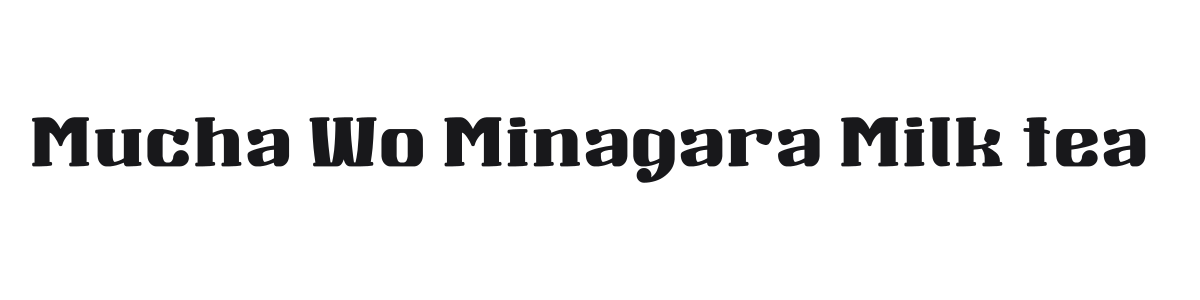
Mucha Wo Minagara Milk tea
Mucha Wo Minagara Milk tea is a heavy, condensed slab serif from Goma Shin with blocky, densely packed letterforms that carry a Japanese-inspired graphic sensibility. The bold strokes and tight proportions give it real visual impact, like display type pulled from a Tokyo street sign or product label. Best at large sizes for headlines, posters, and branding where you want something strong and unapologetically chunky.